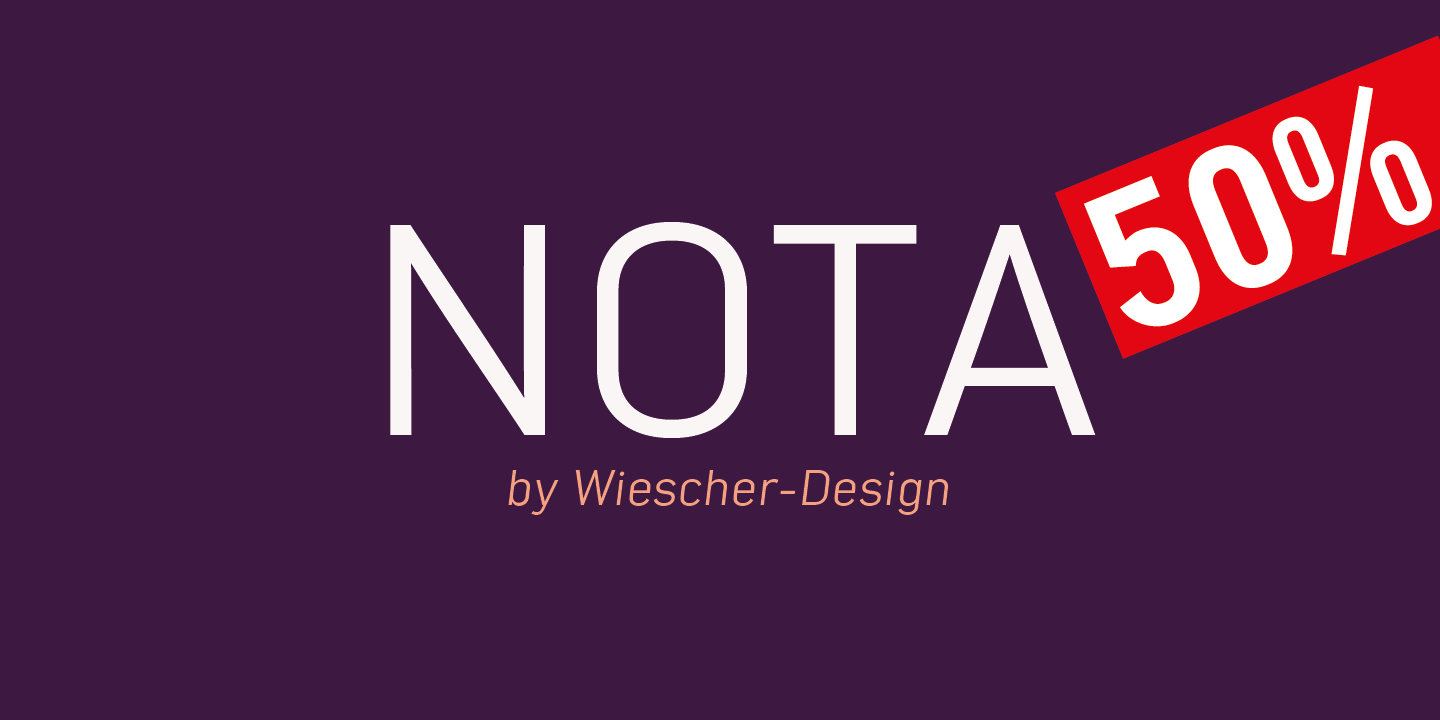
Nota Font Free Download is a clean and modern sans-serif typeface designed for clarity, functionality, and versatility. Its smooth curves, balanced proportions, and straightforward design make it an excellent choice for branding, corporate materials, editorial layouts, websites, and marketing projects that require a professional and contemporary look.
The font’s strong readability ensures that it performs well across both print and digital media, from large display headlines to smaller body text. Nota’s minimalist style makes it a versatile solution for a wide range of applications, delivering a fresh and polished aesthetic without unnecessary complexity.
Nota is a valuable addition to any designer’s toolkit, offering a modern, functional, and stylish font perfect for enhancing a variety of creative and corporate projects.